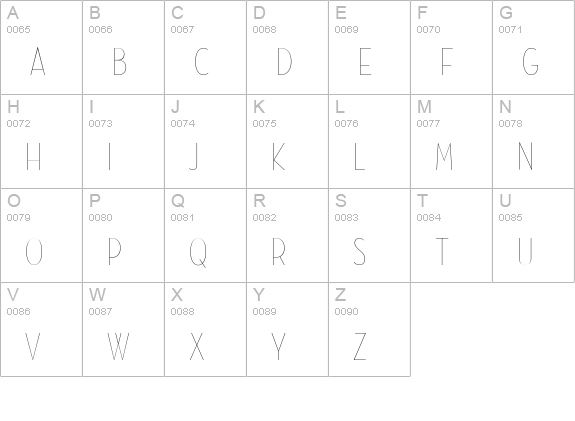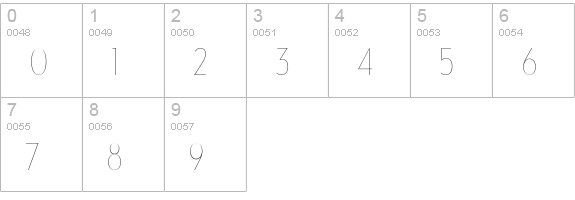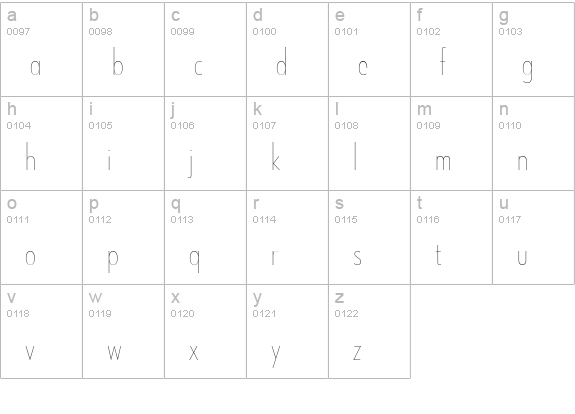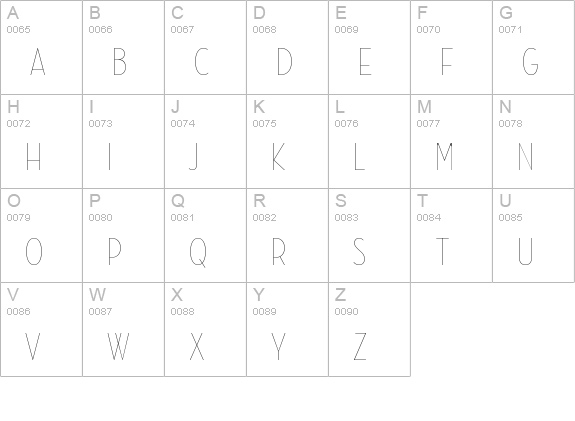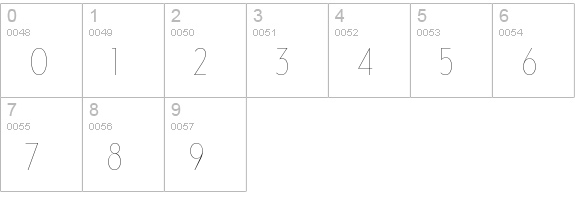
NeutrafaceCondensedPS-ThinAlt is a sleek and modern font that exudes elegance and sophistication. With its thin and condensed style, this font is perfect for creating a clean and minimalist look in your designs. The precise lines and geometric shapes of NeutrafaceCondensedPS-ThinAlt make it ideal for conveying a sense of professionalism and clarity. What sets NeutrafaceCondensedPS-ThinAlt apart is not only its striking visual appeal but also the fact that it is available for free download at FontsMarket.com. This means that you can easily access and use this stylish font in your projects without any cost involved. Whether you're designing a logo, creating a website, or working on a printed piece, NeutrafaceCondensedPS-ThinAlt will elevate your design with its contemporary aesthetic and timeless appeal. Don't miss out on the opportunity to enhance your designs with the distinctive charm of NeutrafaceCondensedPS-ThinAlt. Download this font for free today at FontsMarket.com and take your projects to the next level.